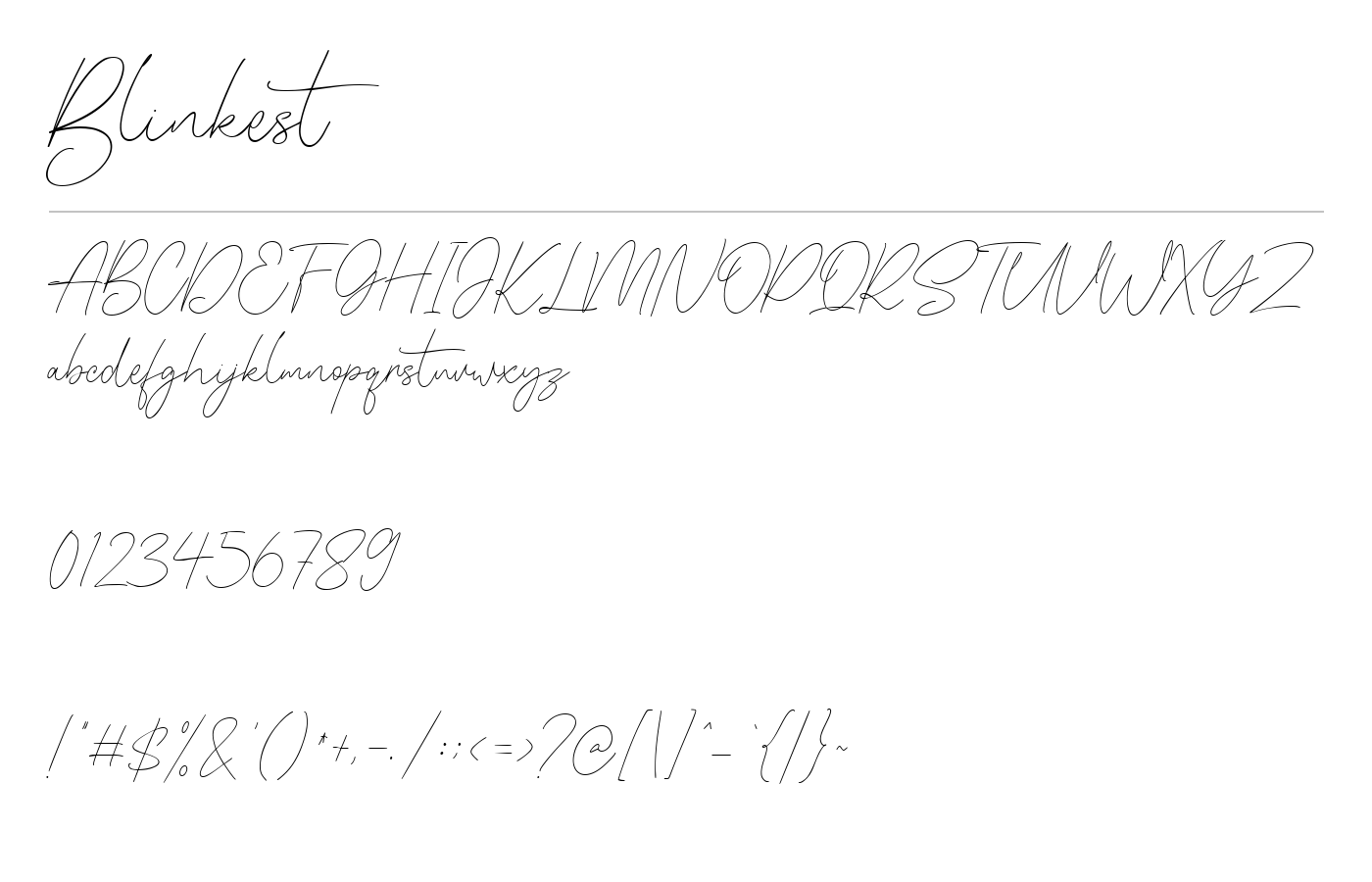
Blinkest is a delicate, handwritten script font that features fine, flowing lines with a slender weight and elegant, slightly irregular strokes, giving it a natural and personal touch. Its airy, cursive style makes it perfect for invitations, branding, and creative projects that require a graceful and intimate feel. This font works beautifully in designs where a soft, artistic, and refined aesthetic is desired.
Blinkest Font
About Blinkest Font